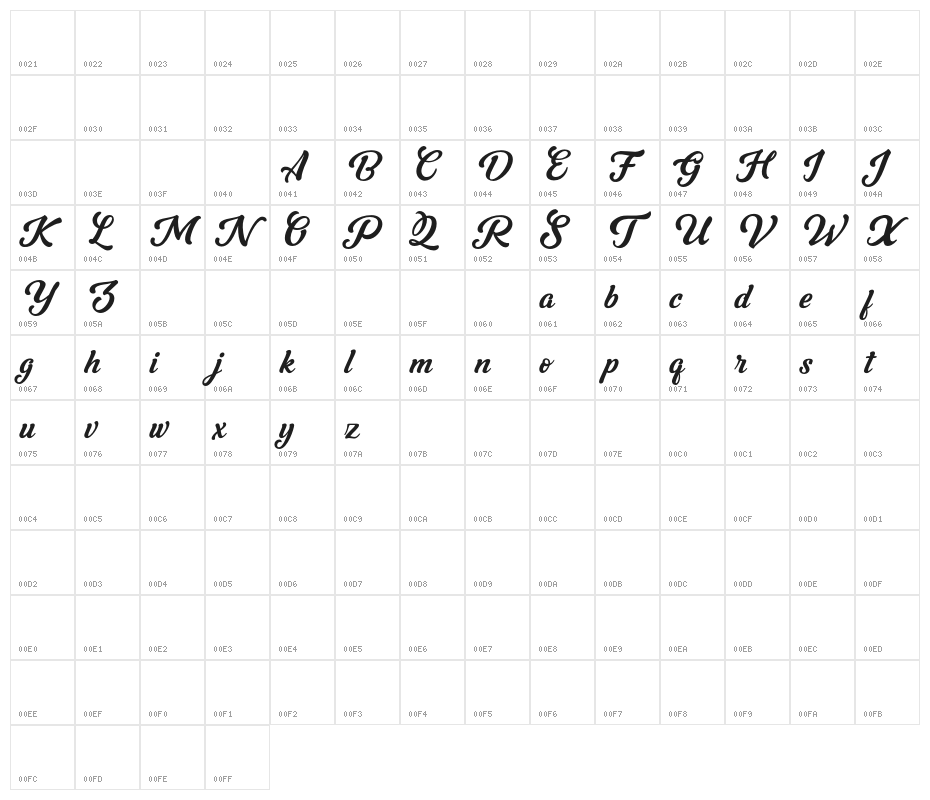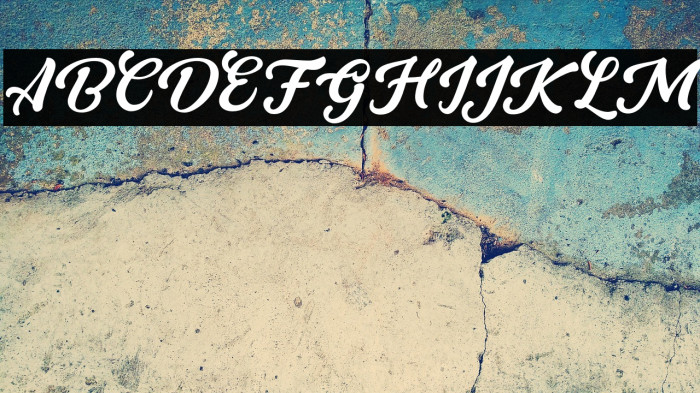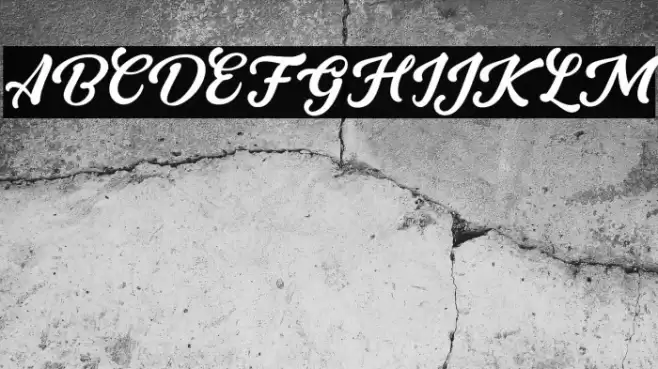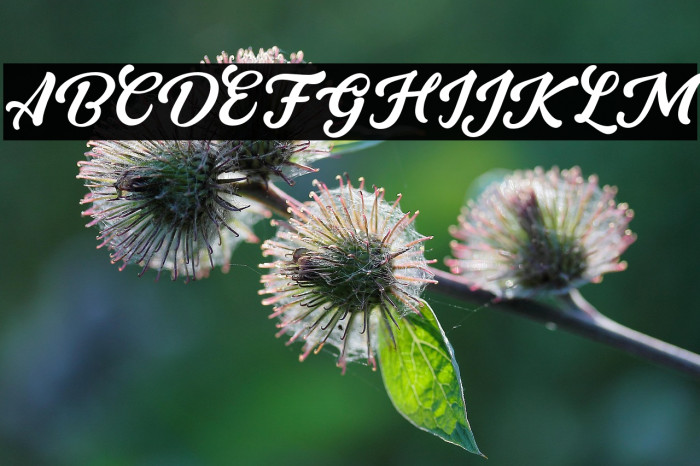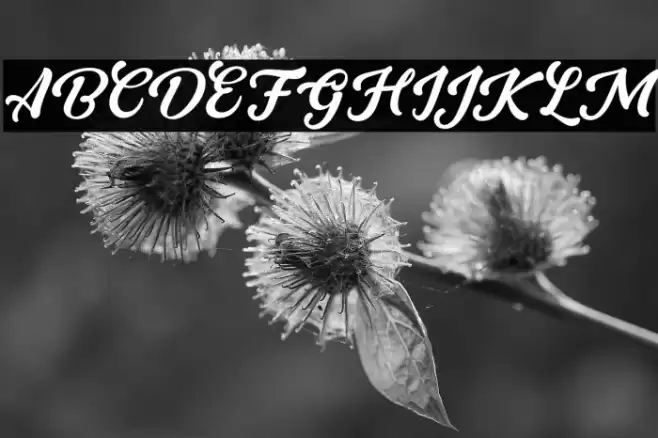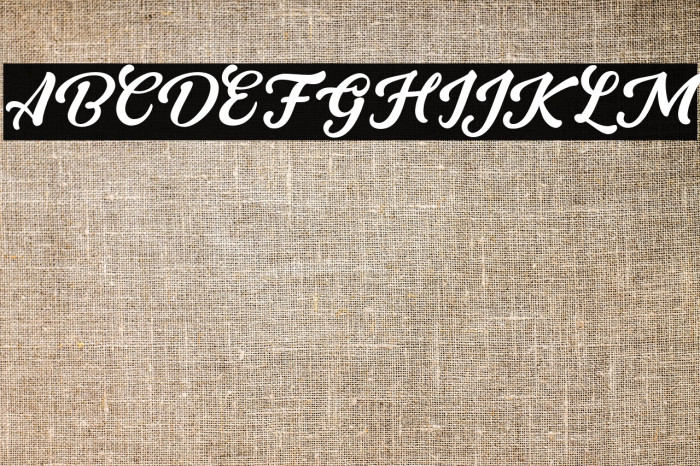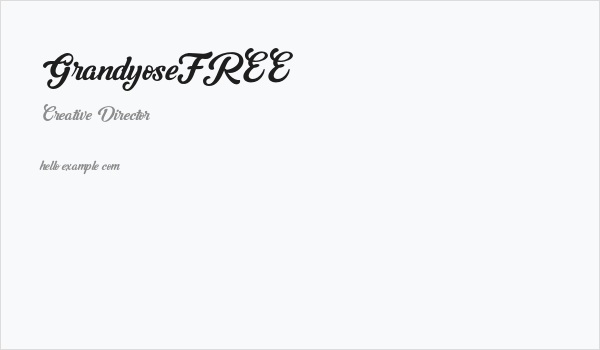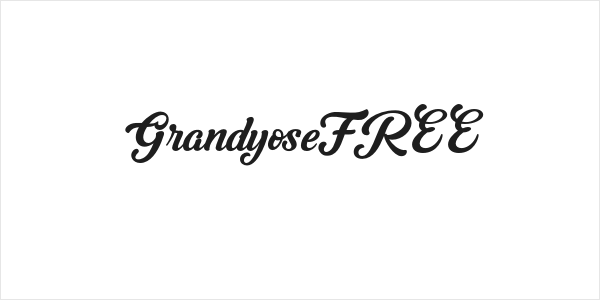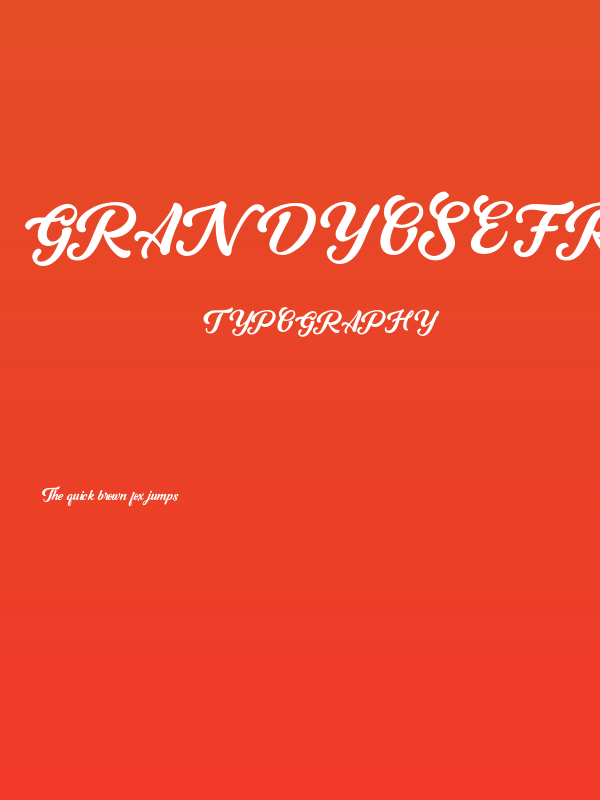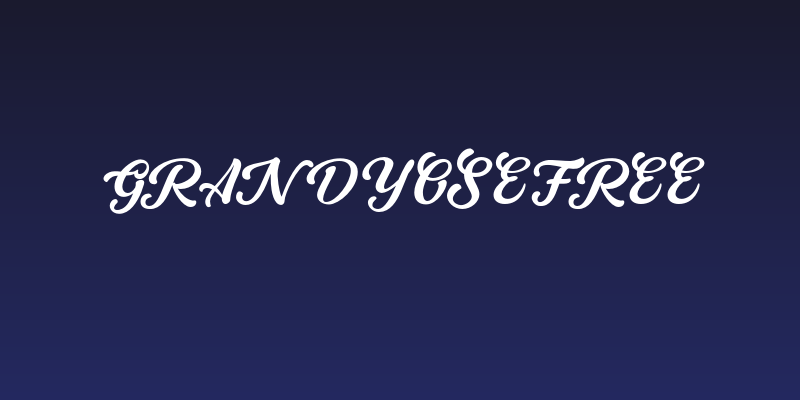
GrandyoseFREE Font
GrandyoseFREE Description
This font features a bold and expressive script style with elegant, flowing curves and a dynamic presence. The uppercase letters are ornate and slightly slanted, giving a sense of movement and sophistication. The lowercase letters maintain a consistent style, with smooth connections and a harmonious flow. The font's overall appearance is both classic and modern, making it versatile for various design needs. The characters are well-balanced, with a medium contrast in stroke thickness, adding to its readability and aesthetic appeal.